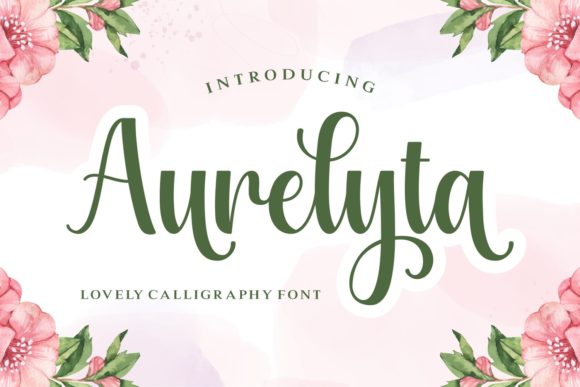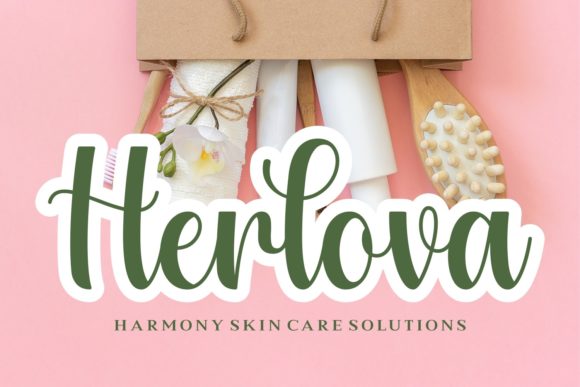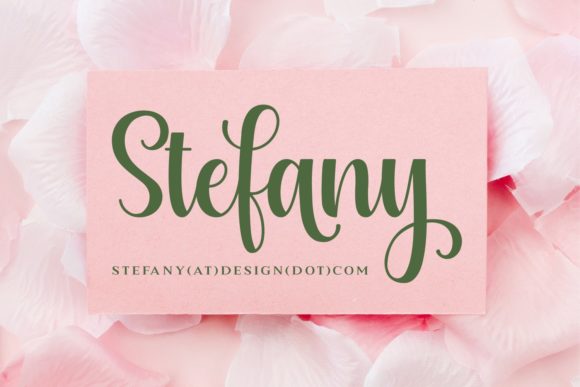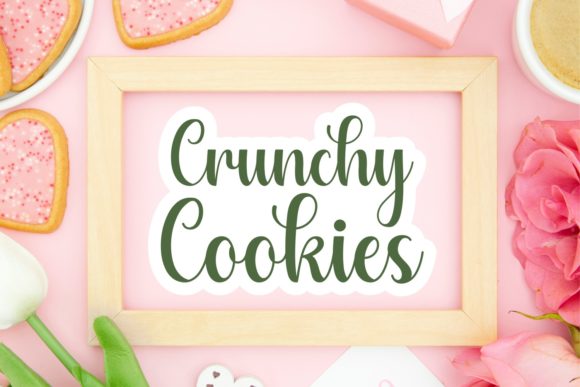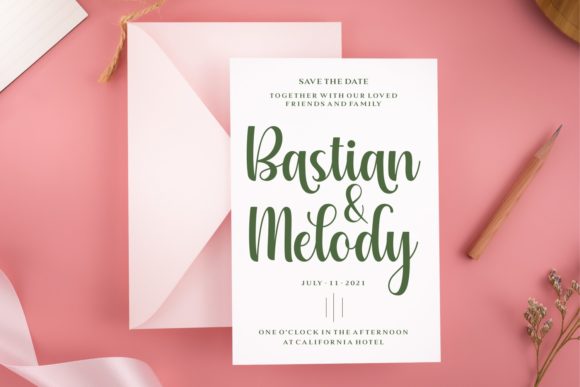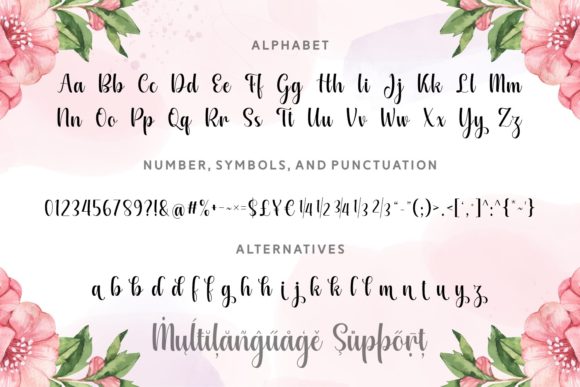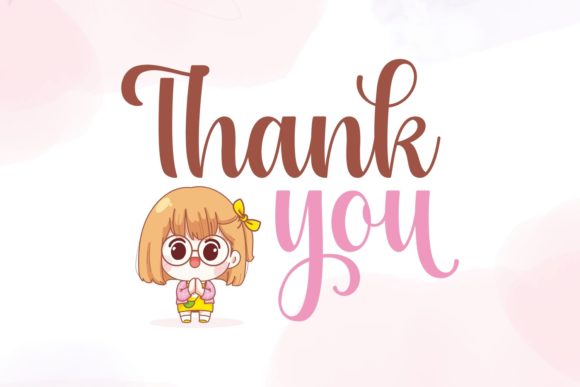
Aurelyta Font
About Aurelyta Font
Aurelyta is a delightful calligraphy font that radiates with a romantic touch, making it a perfect choice for various design applications. This handwritten font exudes a lovely and elegant vibe, creating an ideal match for fashion or jewelry branding, wedding cards, birthday decorations, books, wall art, frames, and more.
The graceful curves and romantic flourishes of Aurelyta elevate it to a font that brings a touch of sophistication to your creative projects. Its calligraphic charm adds a personal and intimate quality, making it suitable for a wide range of applications where a romantic and stylish aesthetic is desired.
Fashion and jewelry branding benefit from Aurelyta’s elegant script, creating a visual identity that resonates with grace and refinement. Wedding cards become a canvas for romance, with this font setting the tone for a memorable celebration. Birthday decorations, books, and wall art gain a touch of timeless beauty when adorned with Aurelyta, creating an atmosphere of charm and sophistication.
Frames and various design elements are enhanced by the font’s ability to convey a sense of elegance and romance. The versatility of Aurelyta ensures its seamless integration into diverse projects, making it a valuable asset for designers seeking a font that adds a romantic touch without sacrificing style.
Furthermore, the inclusion of Aurelyta in the CF Class: Making an Arch Cake Topper with Shaker from Scratch (40 & Fabulous Cake Topper) emphasizes its adaptability for crafting projects and other creative endeavors. This font becomes not just a design tool but a key element in creating visually appealing and charming projects.
In conclusion, Aurelyta is more than a font; it is a design companion that brings a romantic touch to your creative expressions. Its versatility and elegance make it a suitable choice for a variety of design applications, ensuring that your projects radiate with timeless beauty and sophistication.